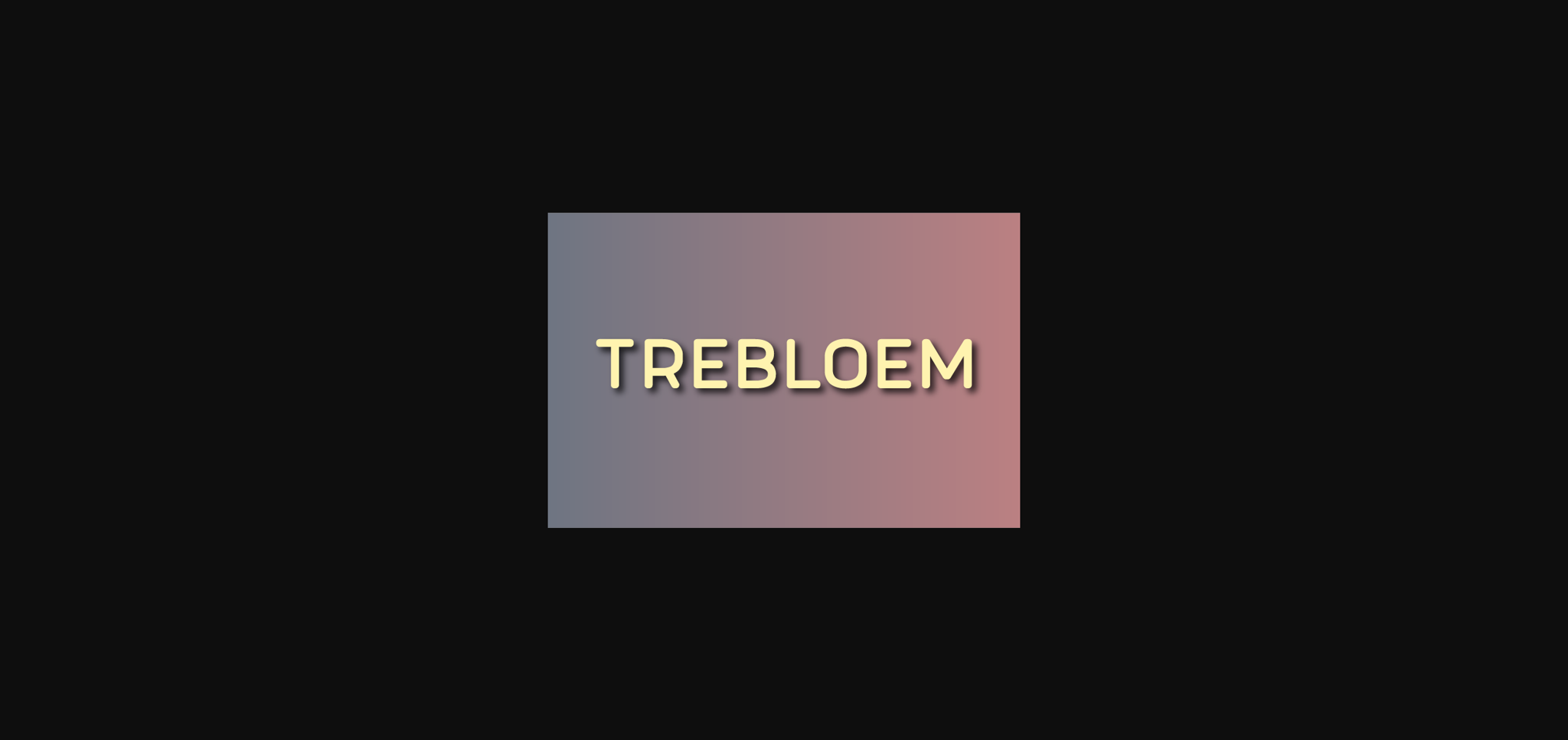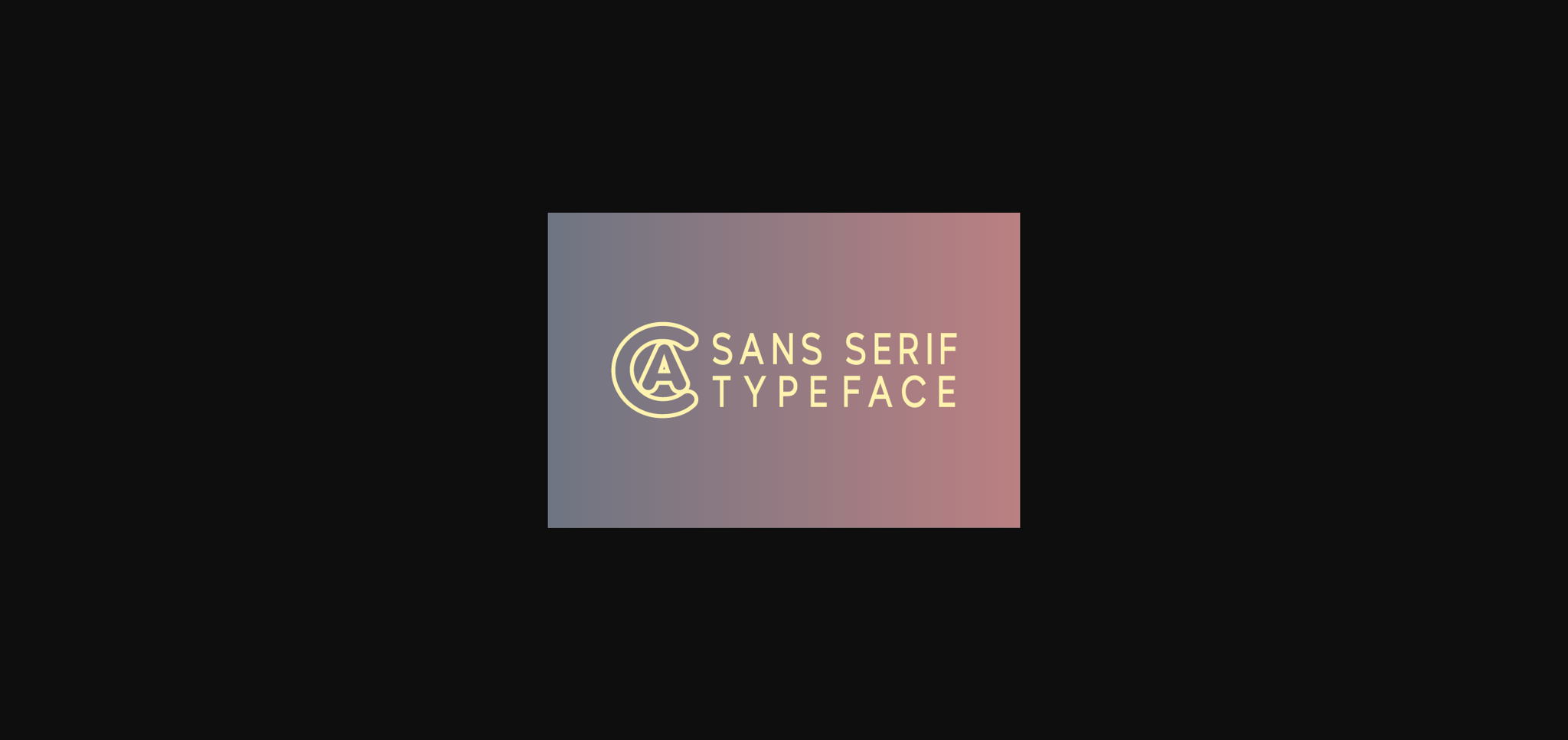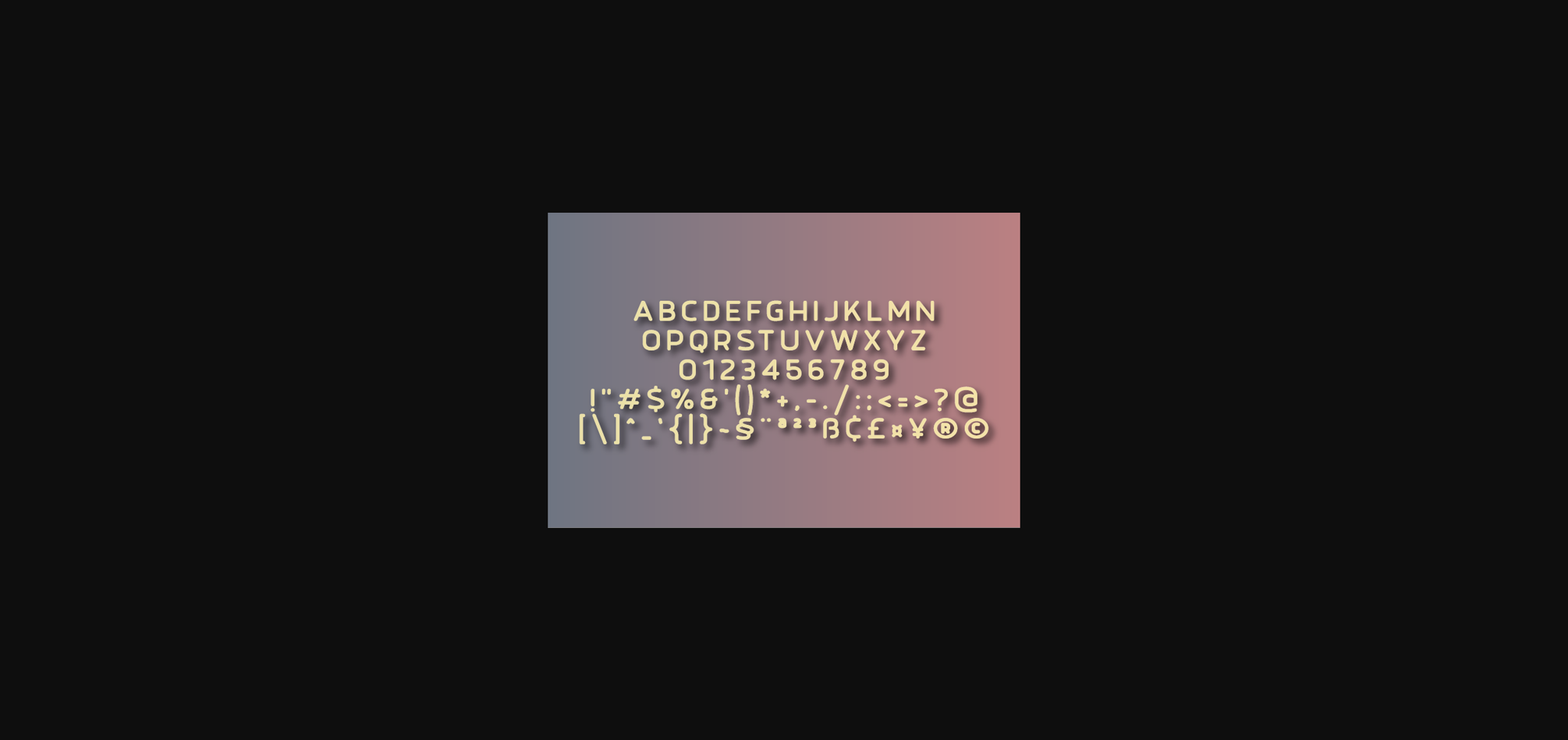
About Trebloem Font
Trebloem is a modern, classy sans serif typeface that contains upper characters, number 0-9 and a range of punctuation and symbols.
An extremely versatile font, perfect for logos, weddings, invitations, quotes, advertisements, print, magazines, and more!